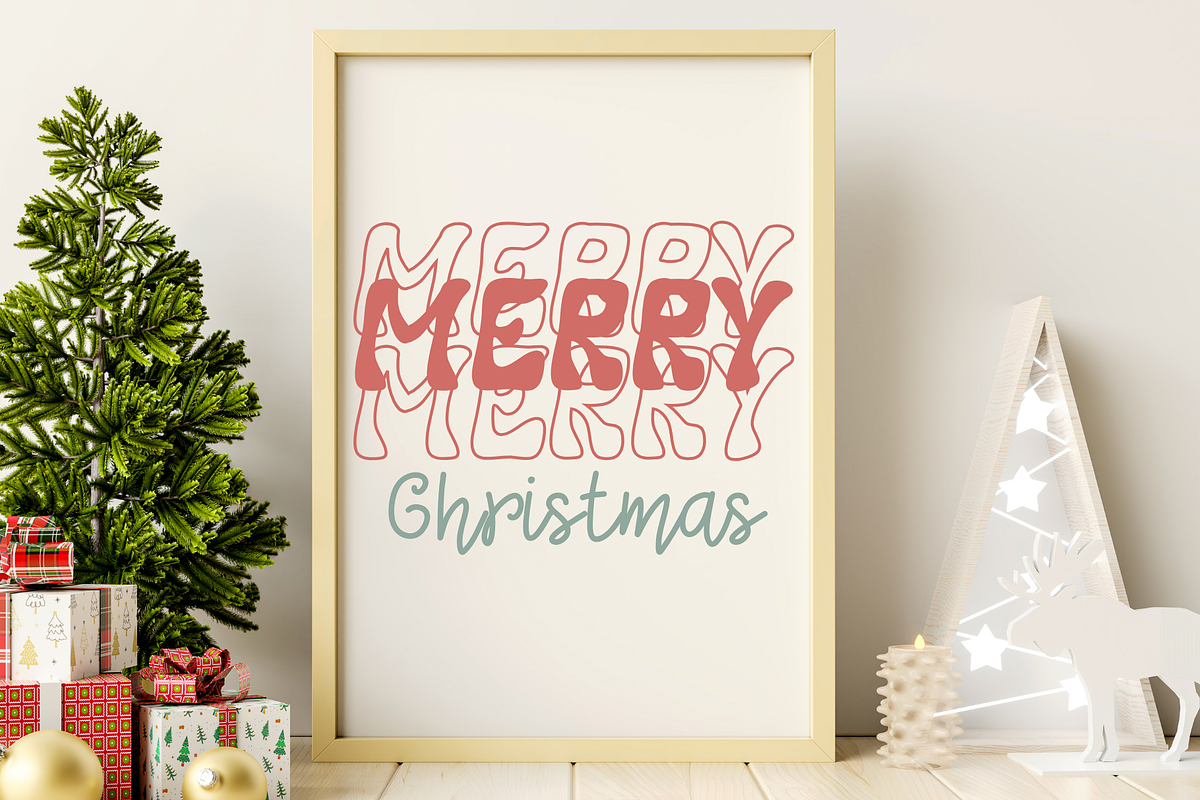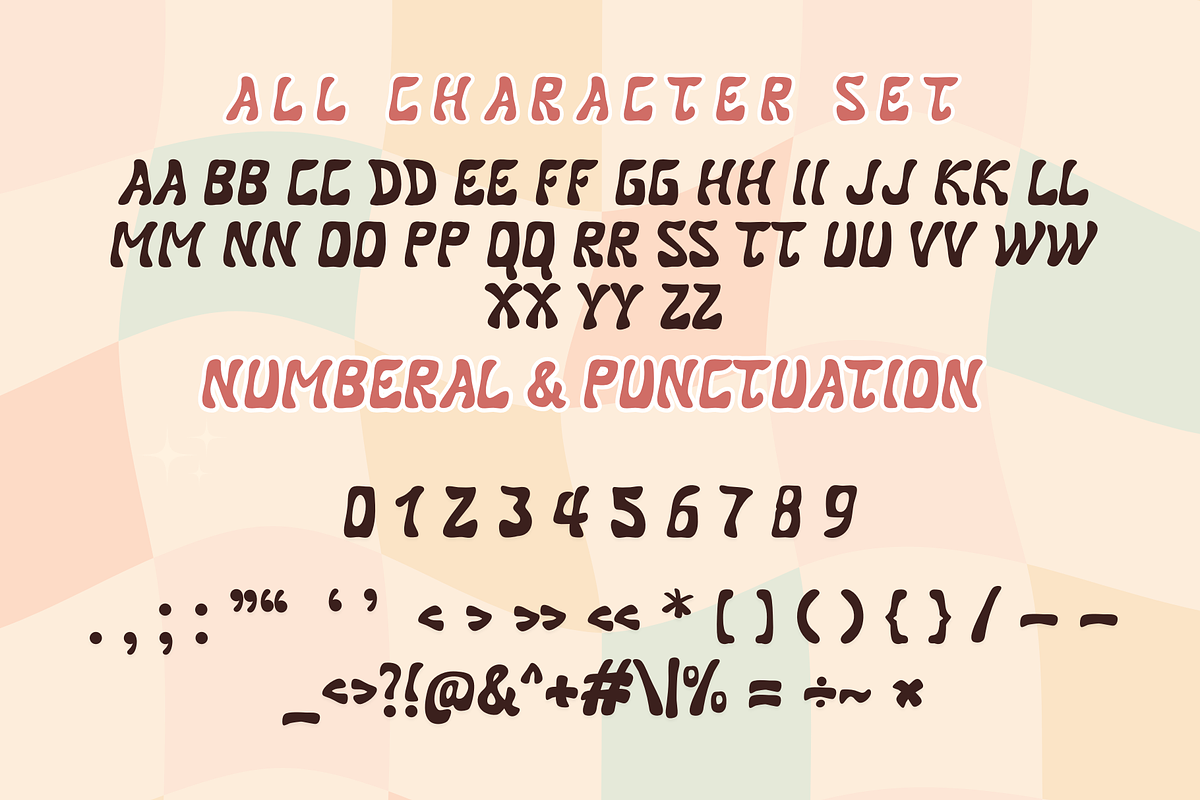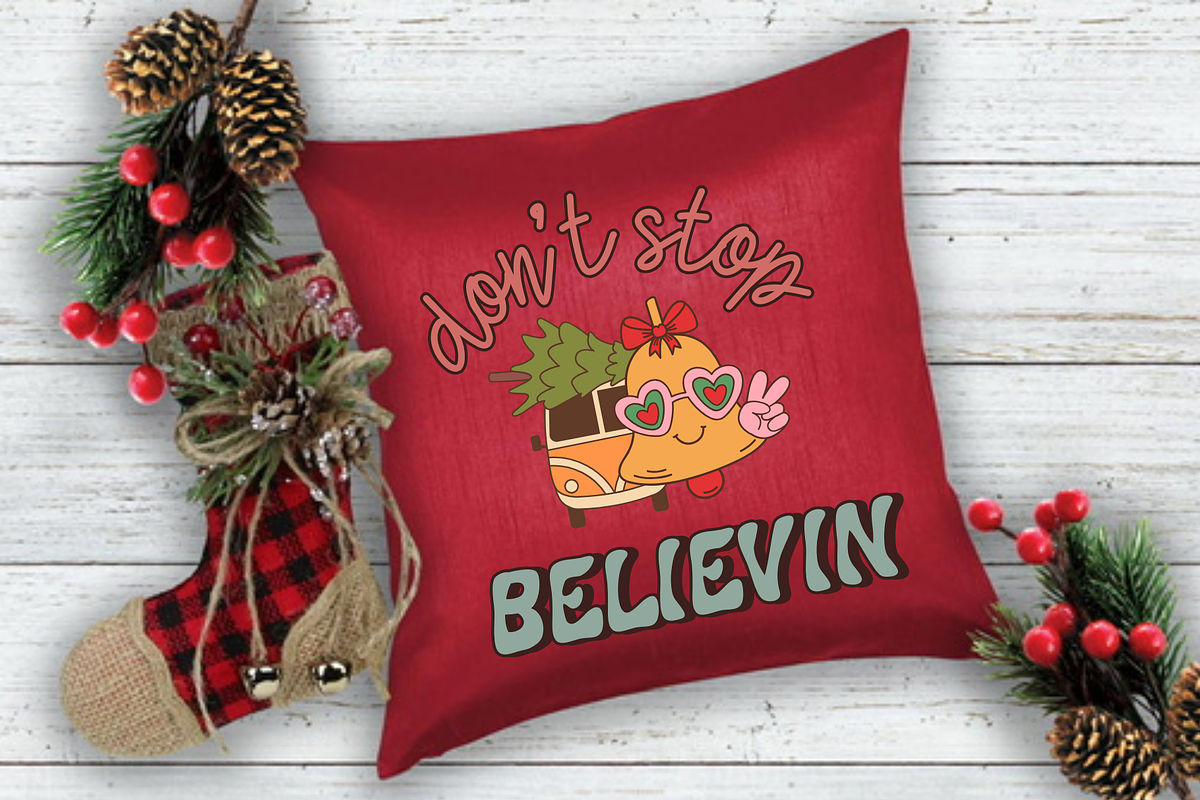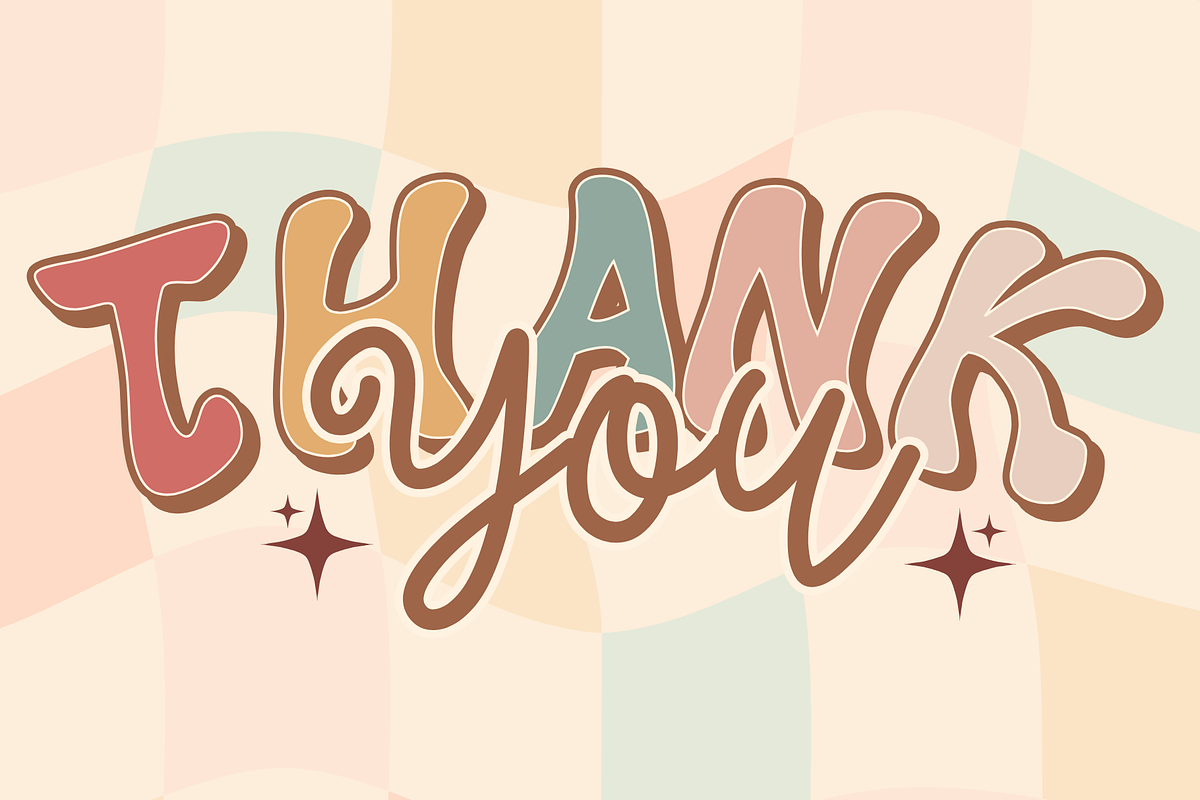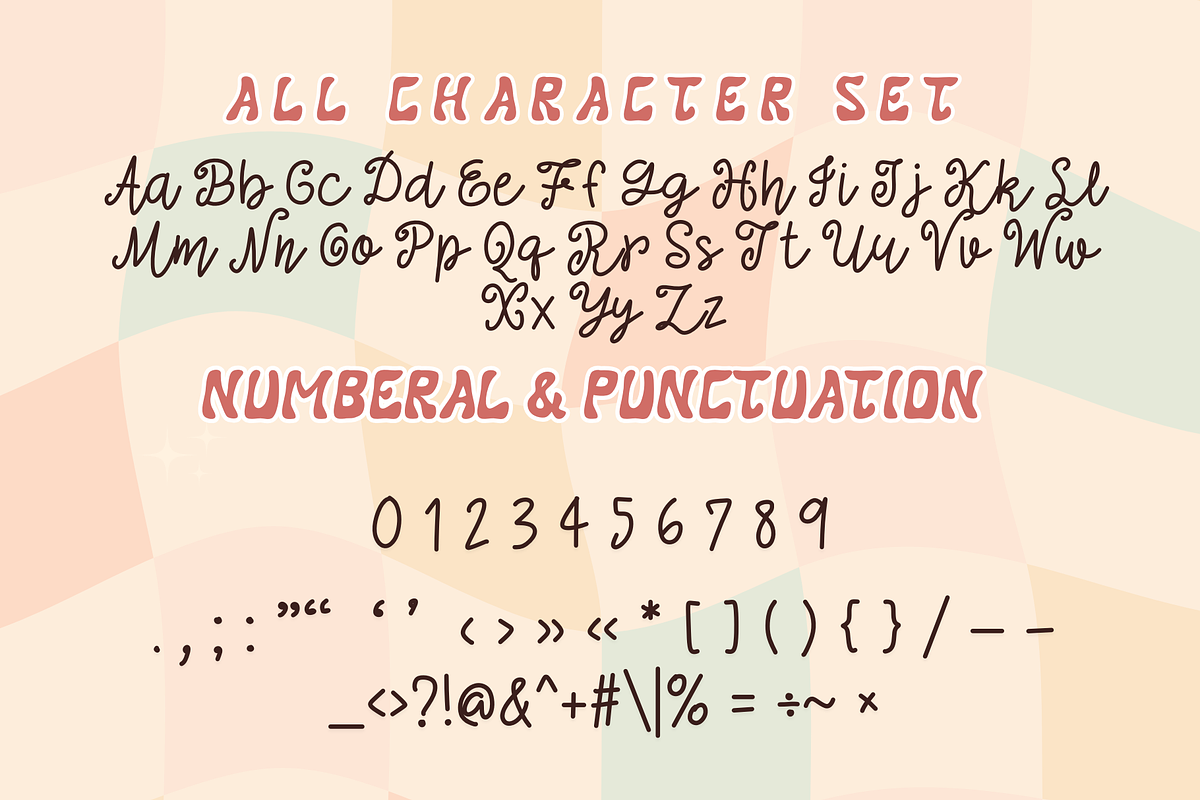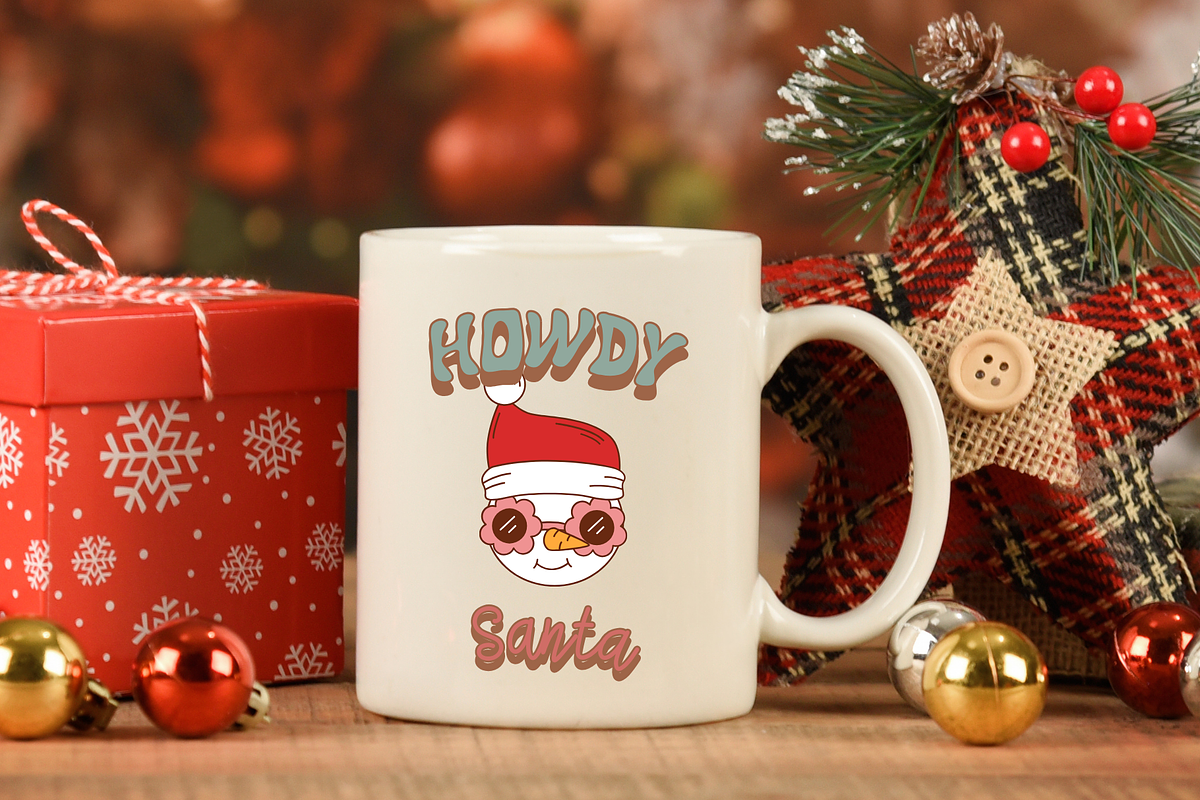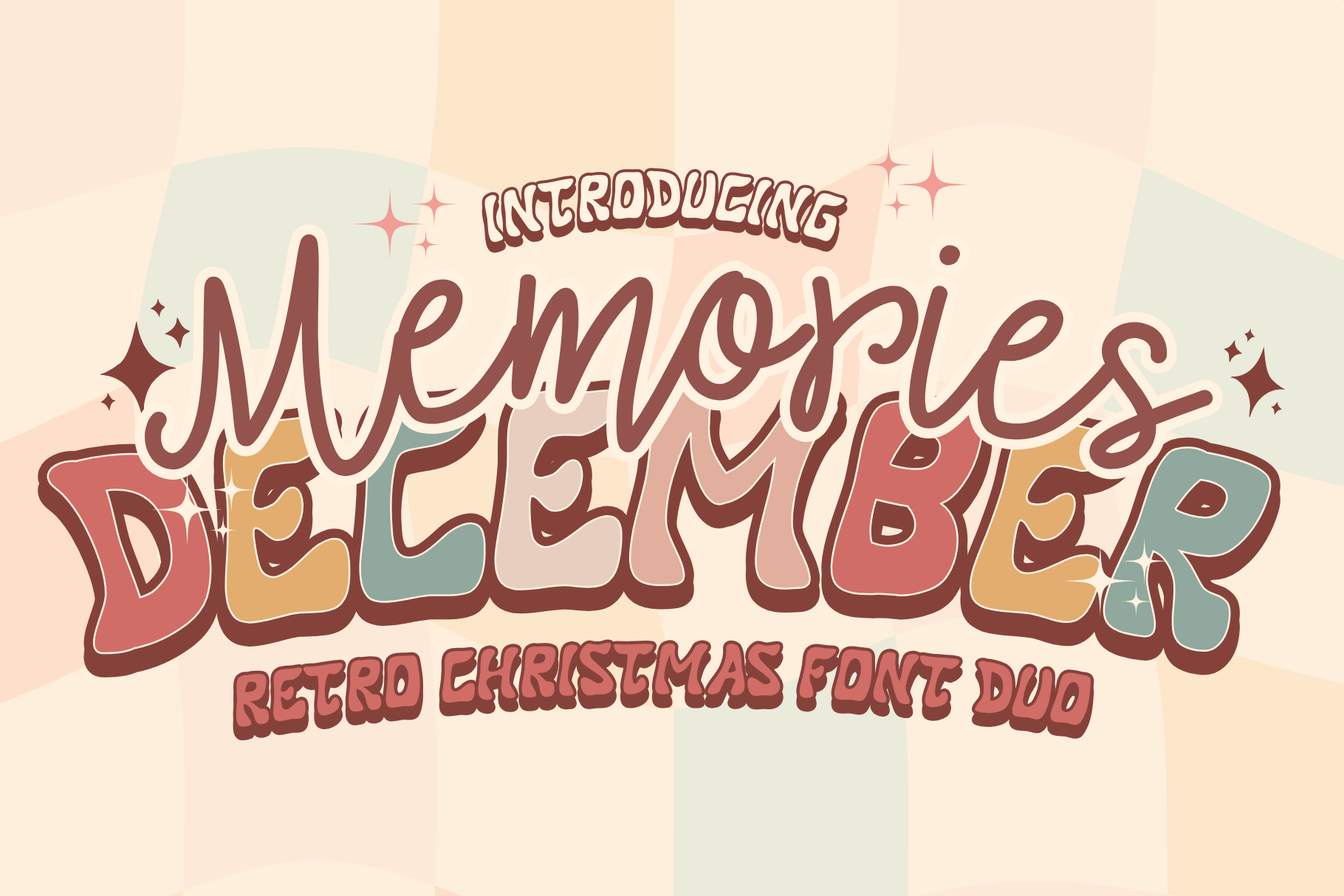
Memories December is Retro font
Memories December is a stylish retro Christmas duo font, combining a display and handwritten typeface that exudes a cool and groovy aesthetic. Ideal for all your hippie-inspired designs, It embodies playfulness and authenticity and is the perfect choice for all your favorite projects, or even for blog posts, logos, branding, ads, invitations, greeting cards, planners, photo albums, decorations, and much more. Add it to any of your designs, and enjoy the results!